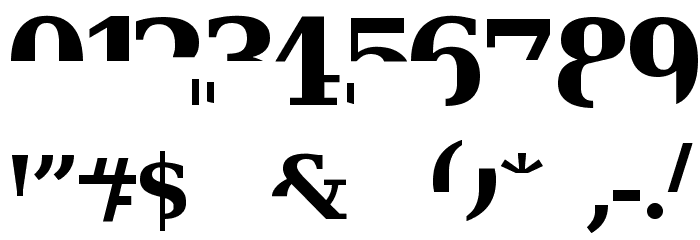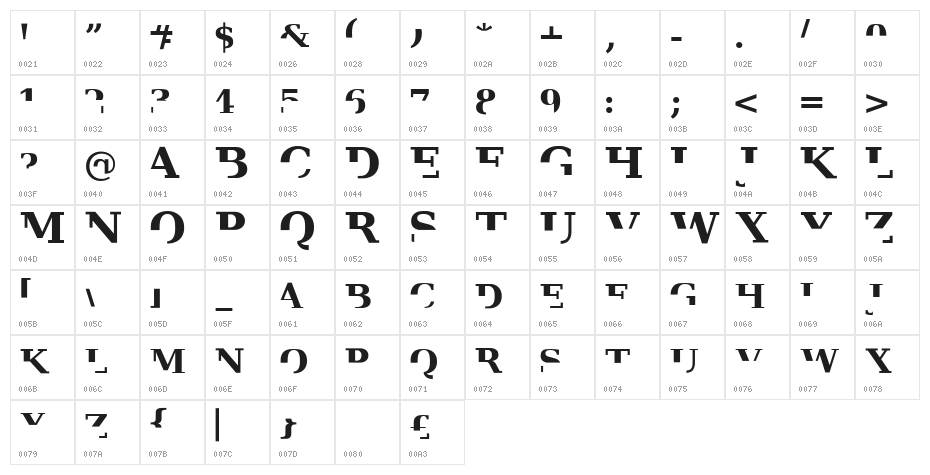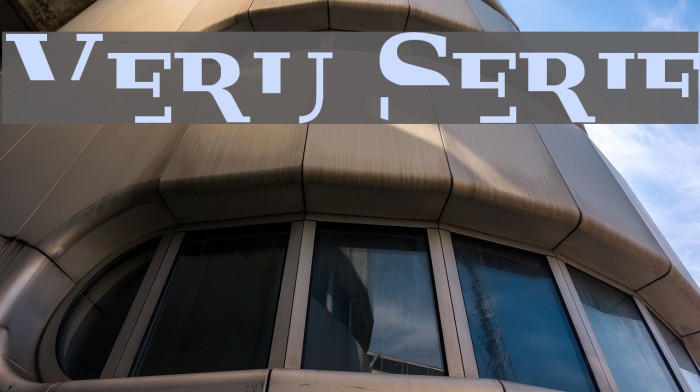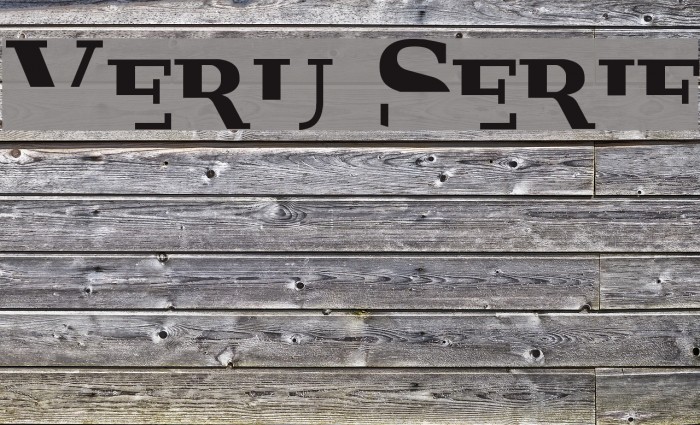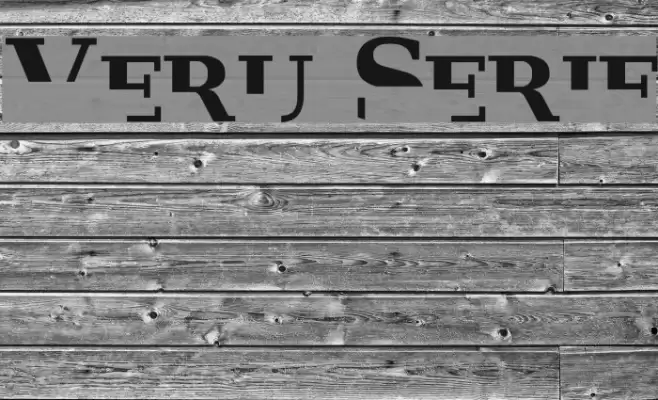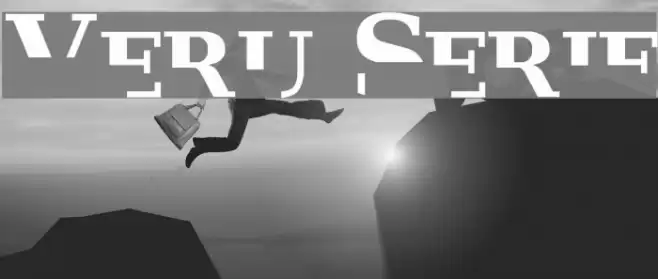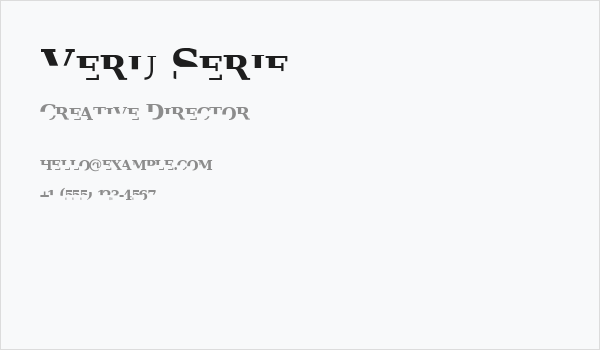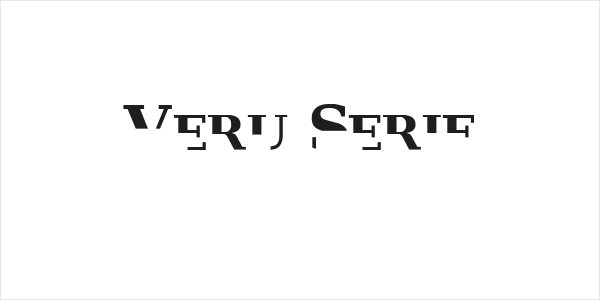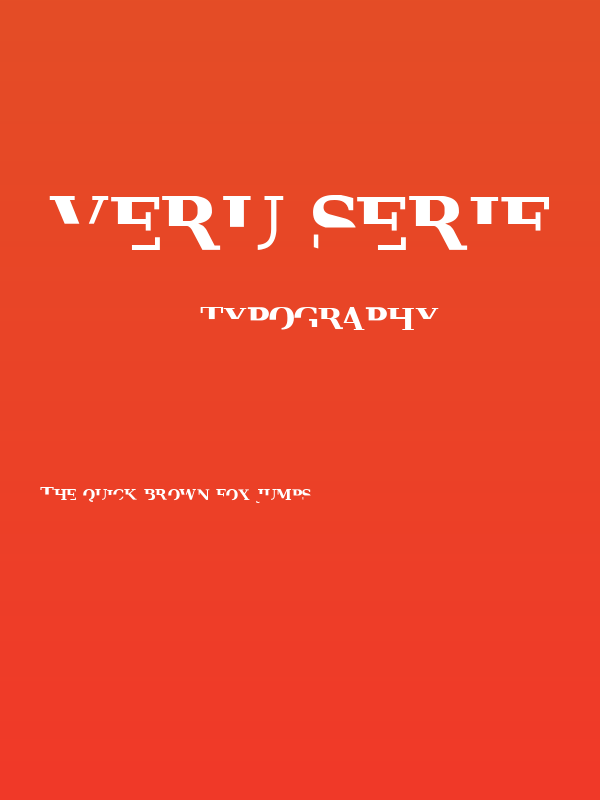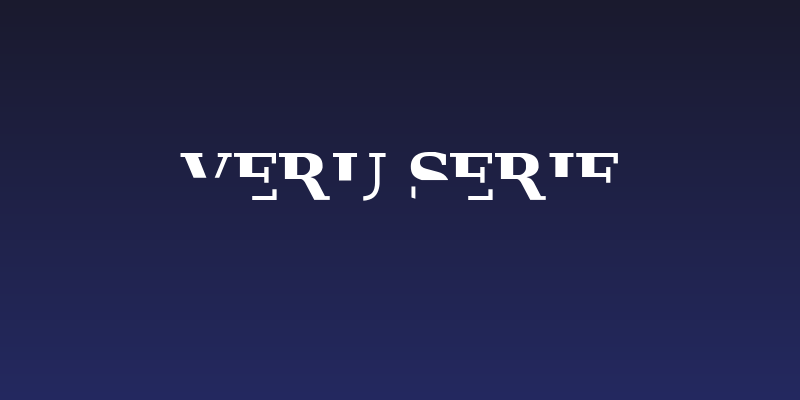
Veru Serif Font
Veru Serif Description
This font features a bold and striking design with a modern twist on traditional serif elements. The characters are characterized by their thick, prominent strokes and unique angular serifs that add a distinctive flair. The uppercase letters are particularly bold, making them stand out, while the lowercase letters maintain a consistent style that complements the uppercase. Numbers and special characters are equally bold, ensuring uniformity across all text. The font's design is both contemporary and versatile, suitable for a variety of creative applications.
Proposed ProjectsIdeal for branding, headlines, posters, and any project requiring a bold, modern serif typeface.